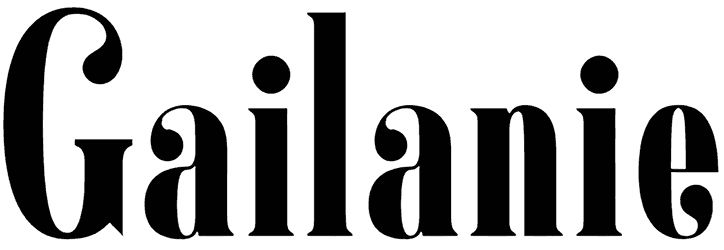
Gailanie Font
Would you want to be stated, so no one can take their eye off your creation? Have a look at Gailanie, a classic font with luxury regard. This asset has a unique antique face that serves as one of your top-notch pickups for many assortments.
Magazine covers, posters, invitations, and a lot more designs with outstanding tunes would host this one. A trace of creativity, and you’re set to one-up each one in the dream with this artwork in your hands!